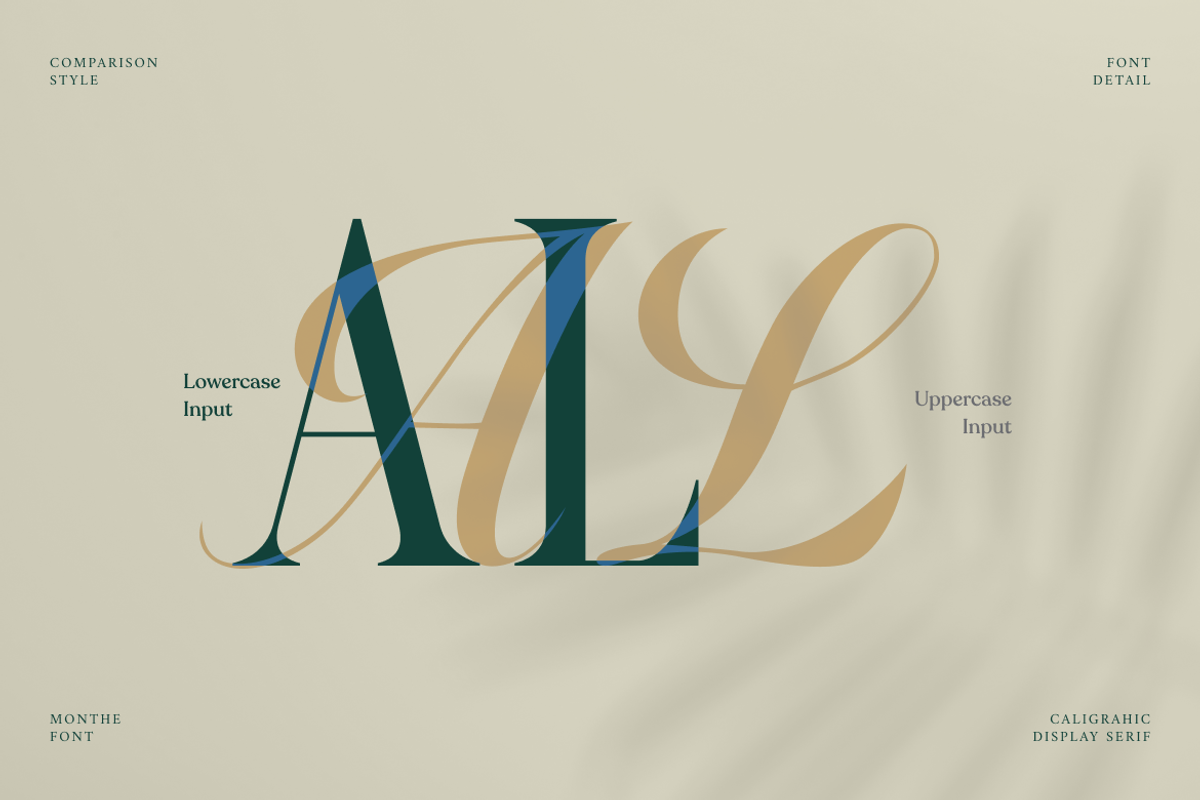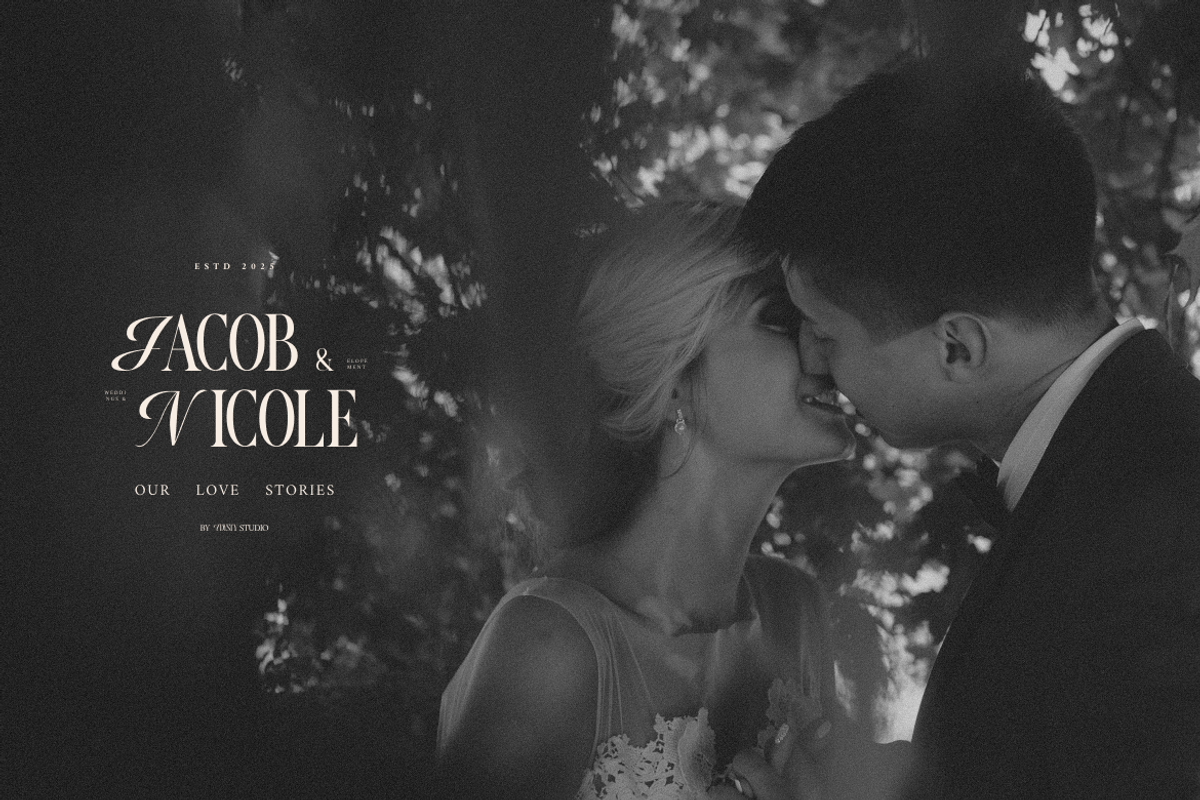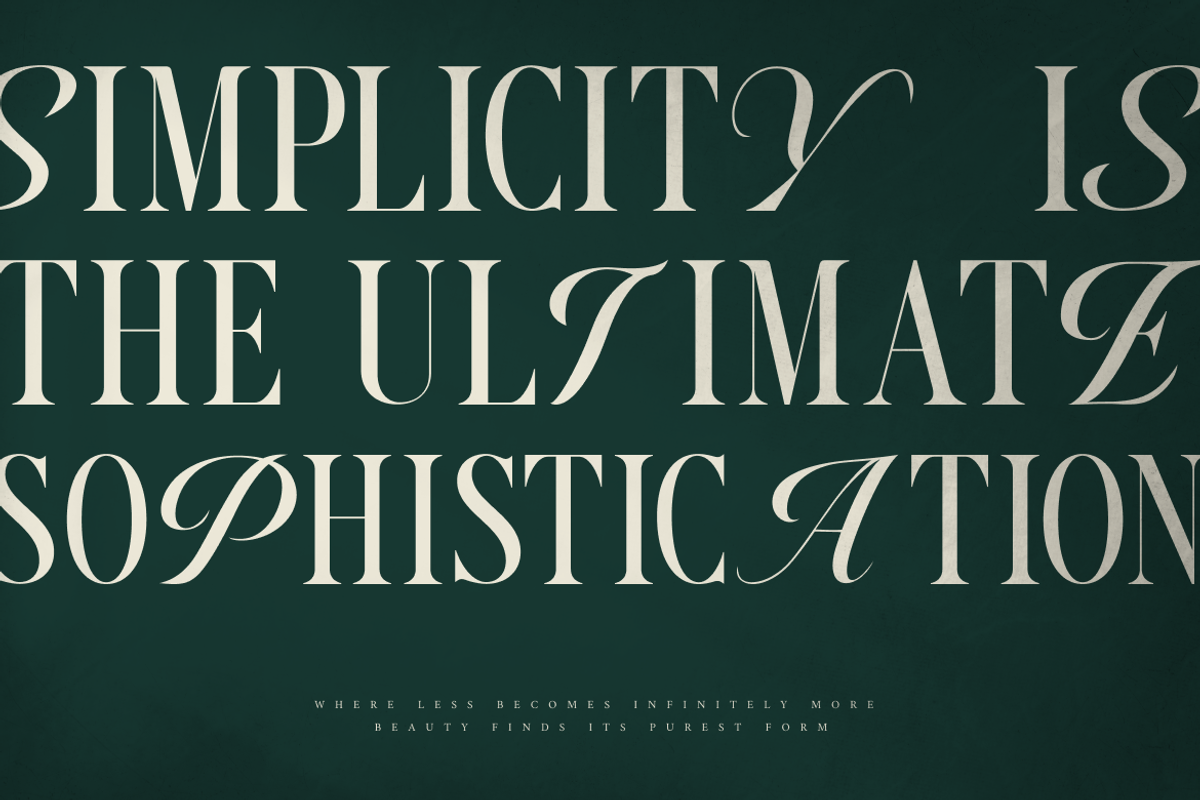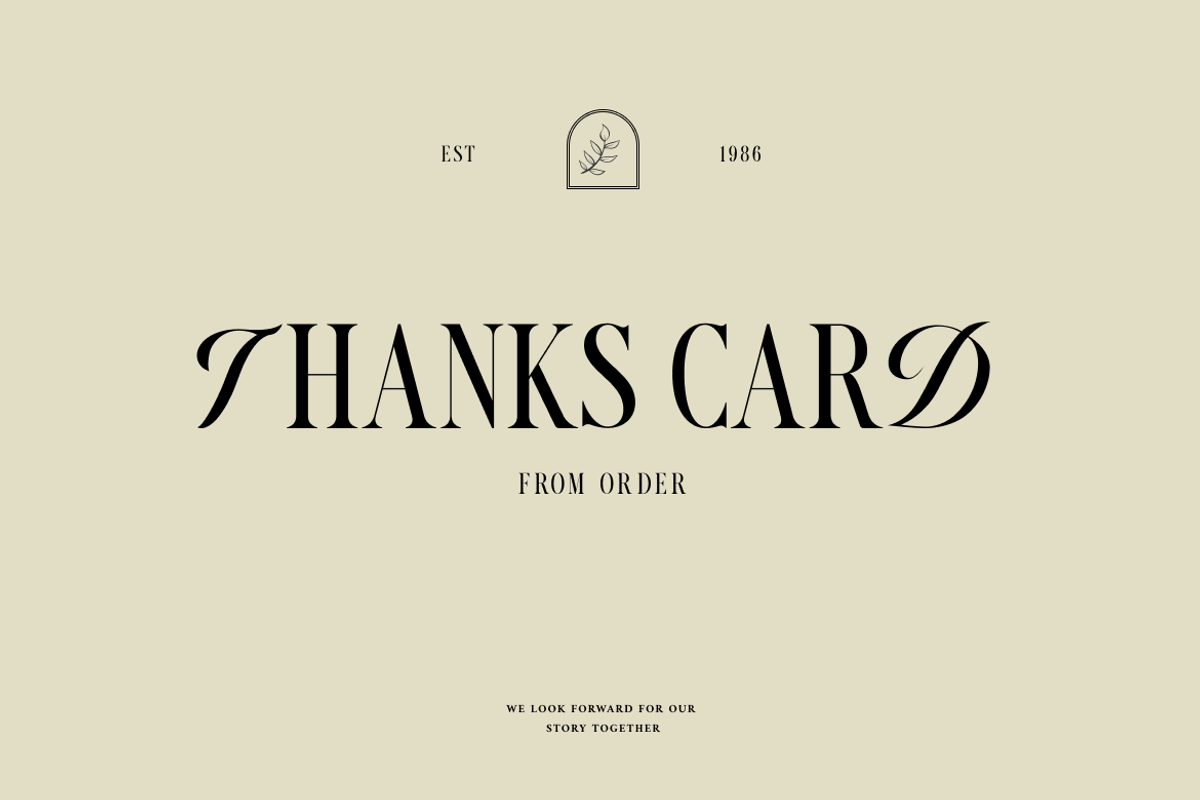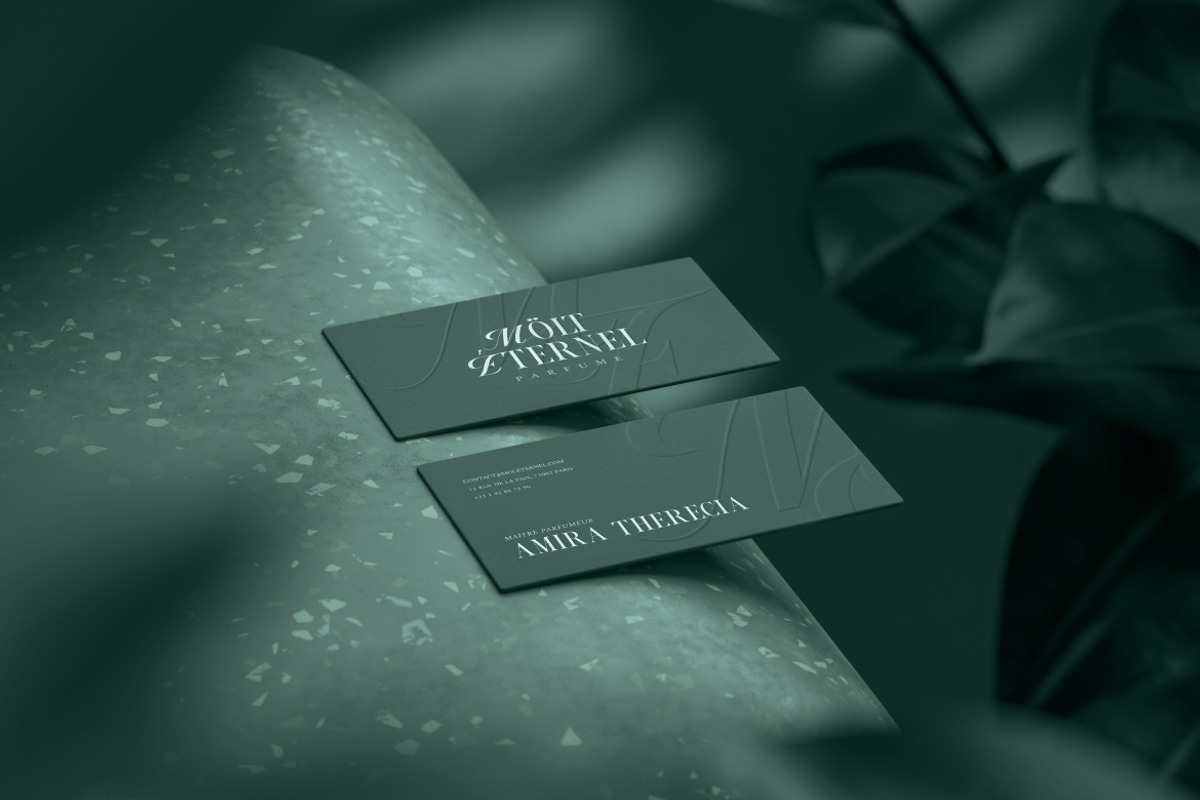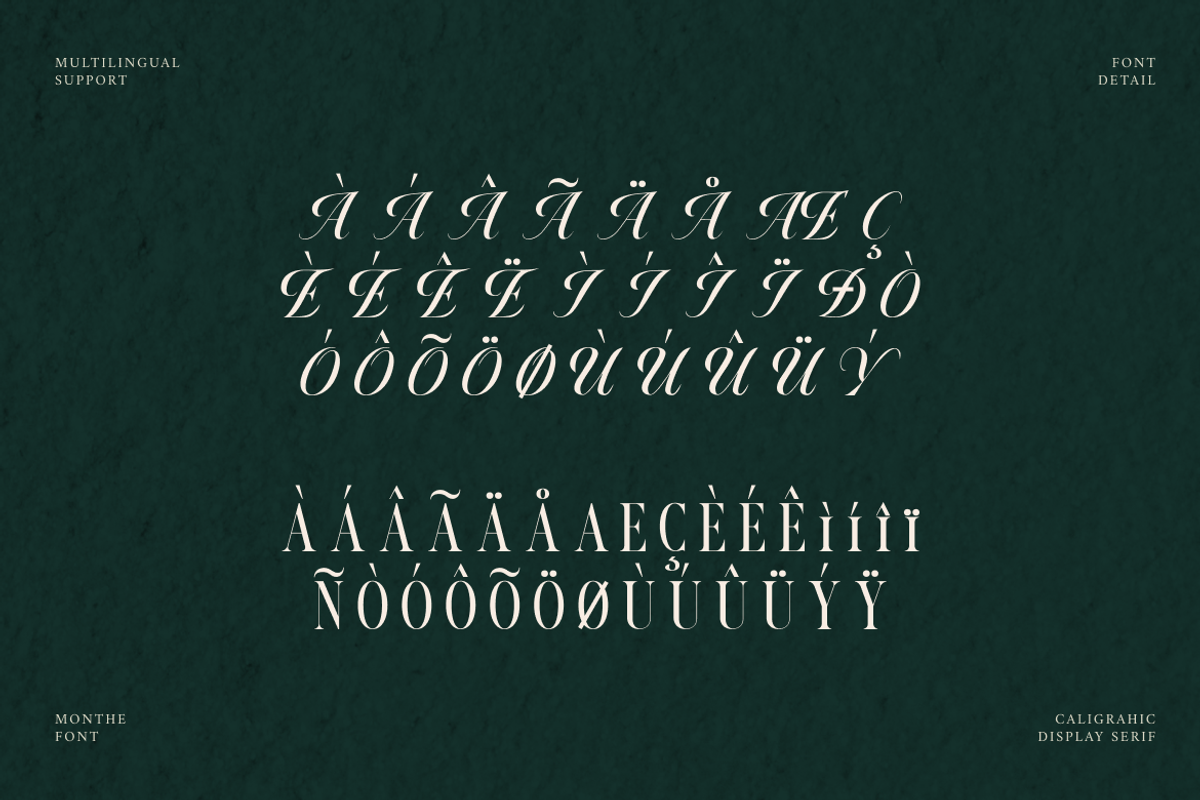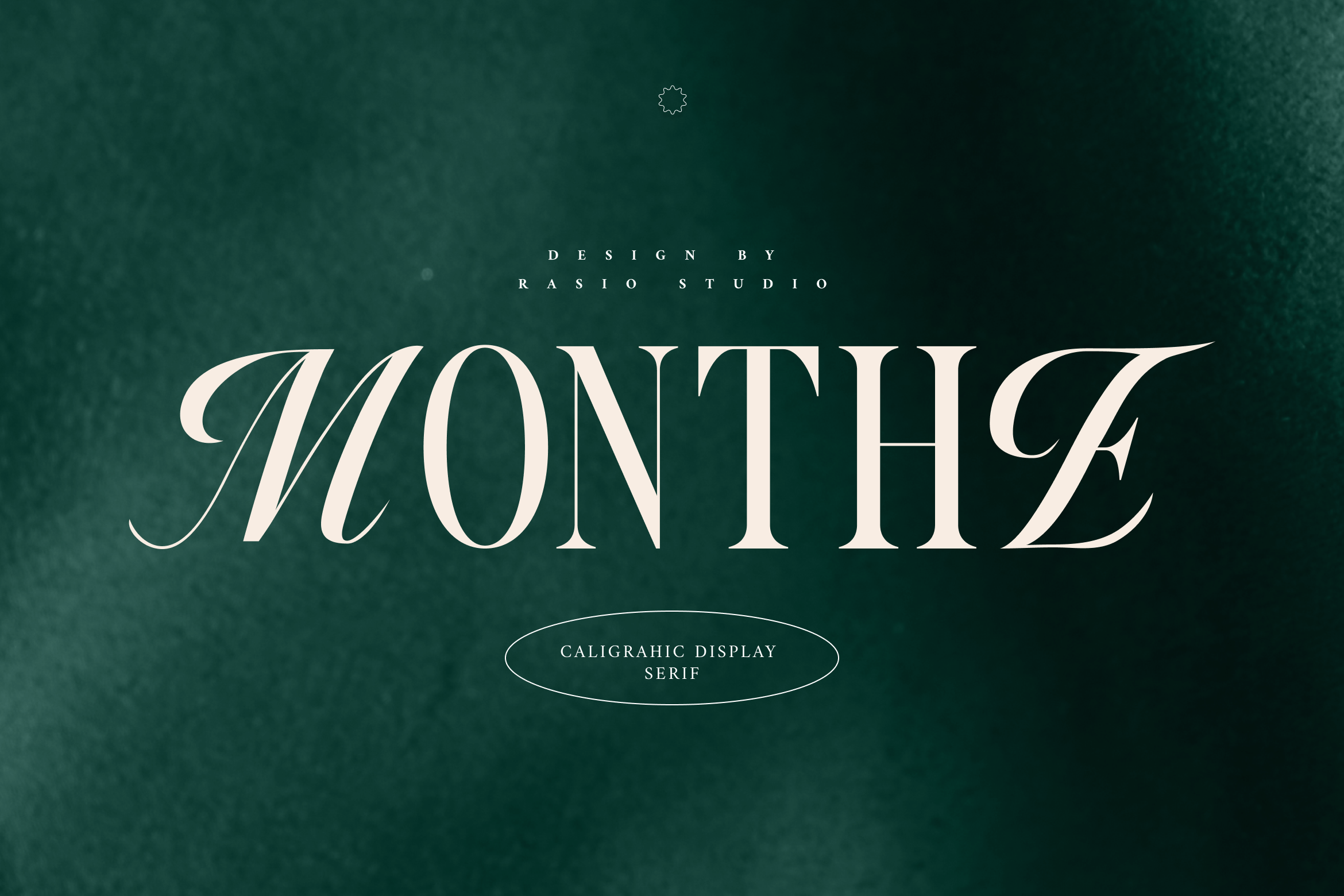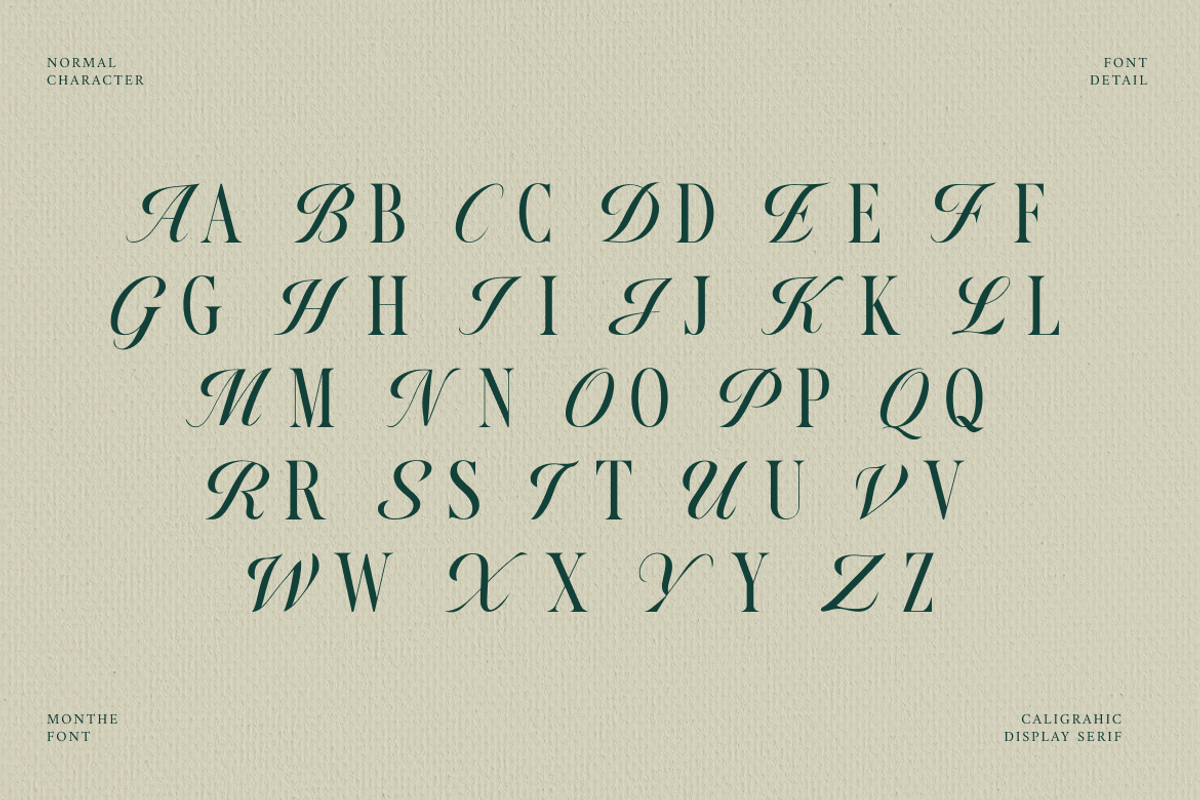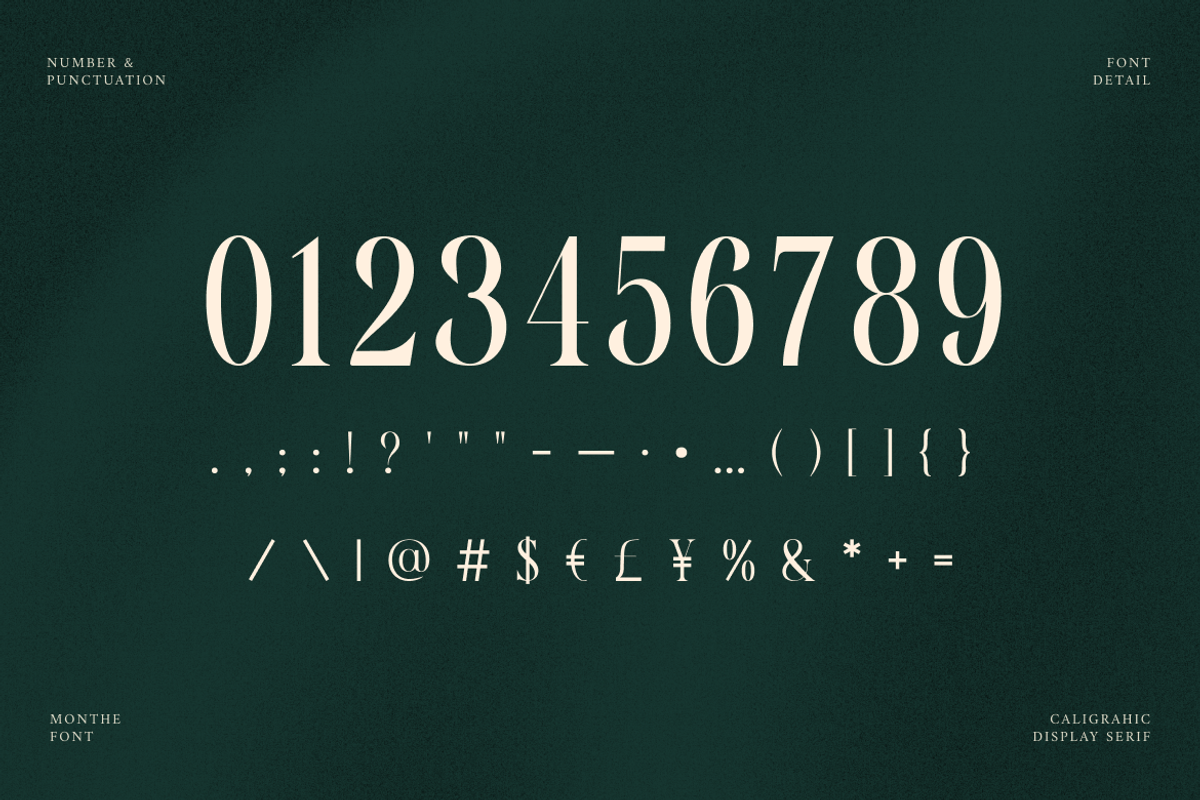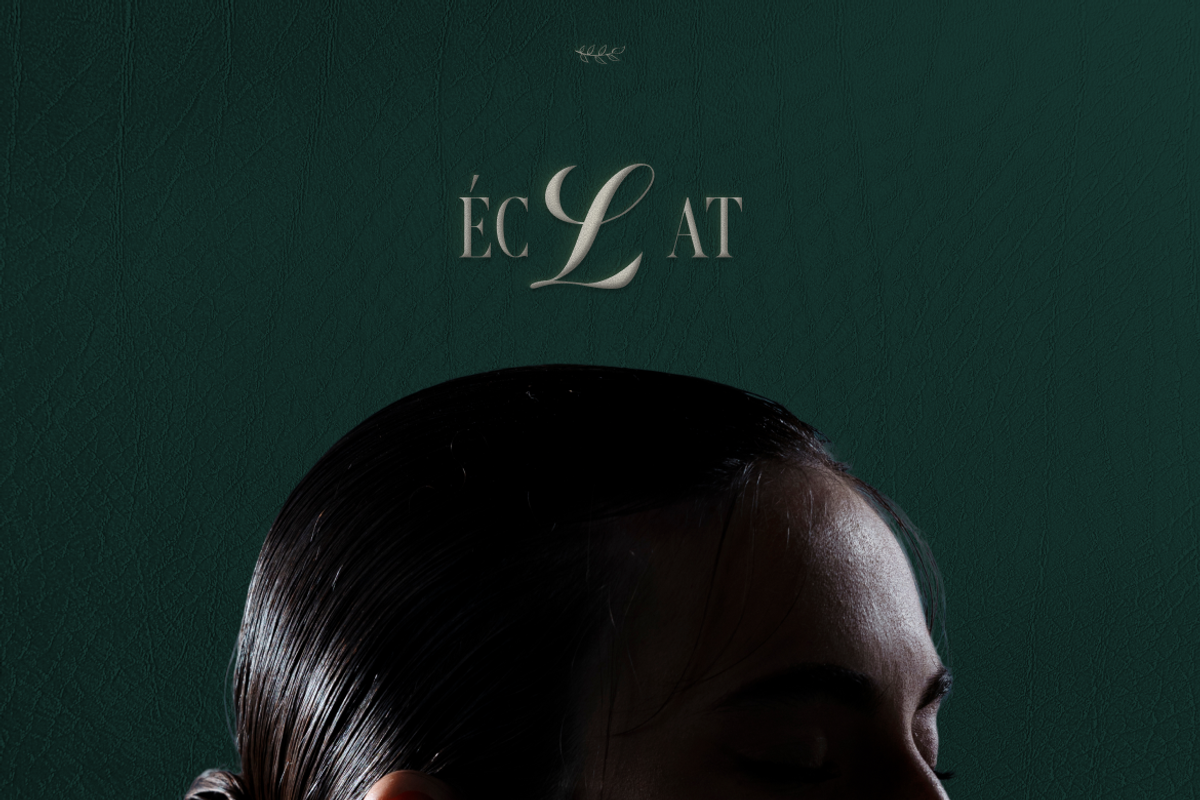
Monthe Calligraphy Serif Font
Monthe is a refined calligraphic display serif that blends classic elegance with graceful flowing strokes and decorative swashes. The letterforms feature high contrast serifs, smooth curves, and expressive alternates that create a luxurious and romantic character. Includes uppercase, lowercase, numerals, punctuation, stylistic alternates, and multilingual support.
Monthe is perfect for luxury branding, fashion editorials, wedding invitations, boutique packaging, cosmetic labels, book covers, high-end logos, and sophisticated social media visuals that require a graceful and premium typographic presence. Suitable for luxury brands, wedding stationery, fashion campaigns, beauty products, perfume packaging, editorial layouts, boutique logos.
- Elegant calligraphic serif structure with graceful, flowing strokes
- High contrast between thick and thin lines for a refined luxury feel
- Delicate swashes and decorative alternates adding expressive character
- Soft curves and tapered serifs for smooth readability
- Balanced spacing crafted for striking headlines and sophisticated display compositions
- Luxury brand identities seeking a refined and timeless tone
- Wedding invitations, stationery, and romantic event designs
- Fashion editorials, beauty campaigns, and boutique packaging
- Book covers, quotes, and sophisticated headline typography
- Social media visuals and marketing materials with graceful elegance
Monthe adds beauty, grace, and timeless character to every design